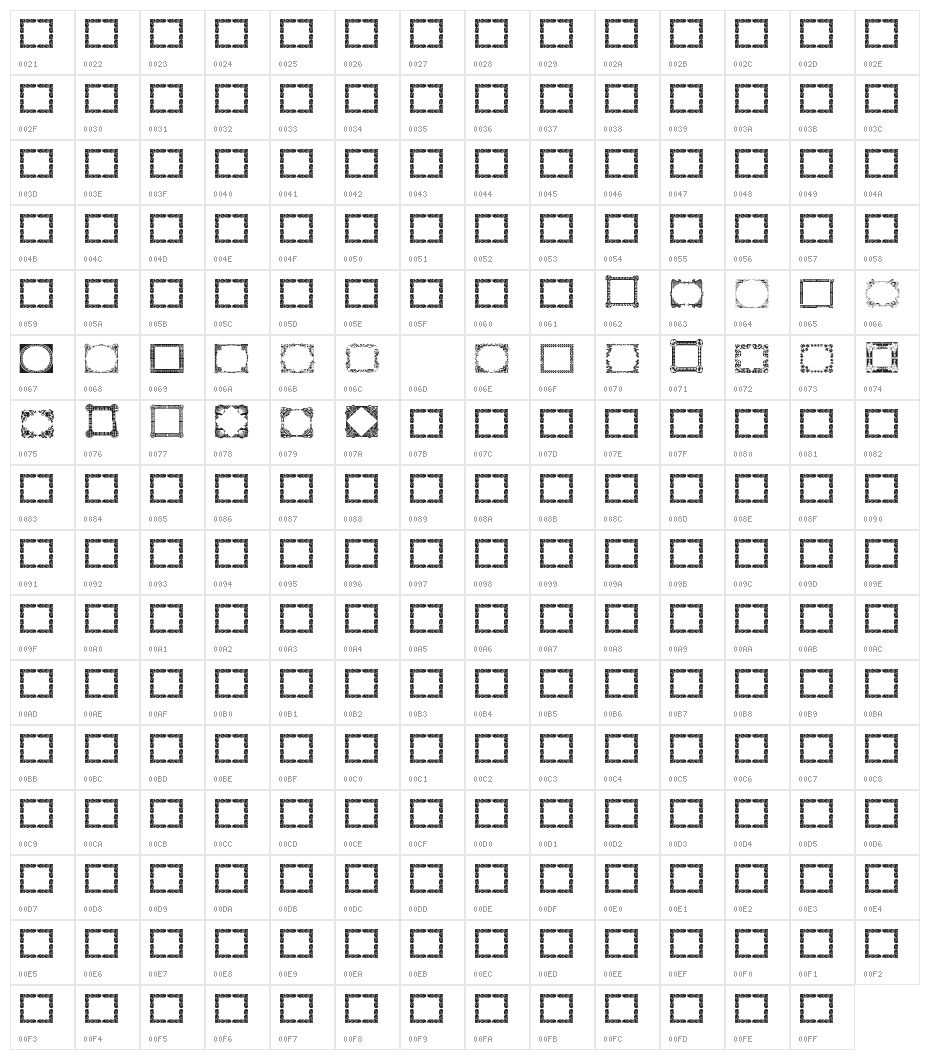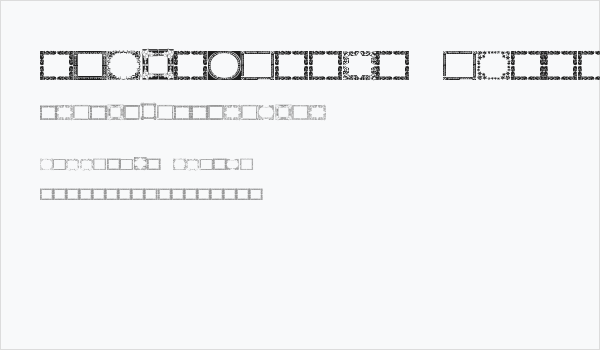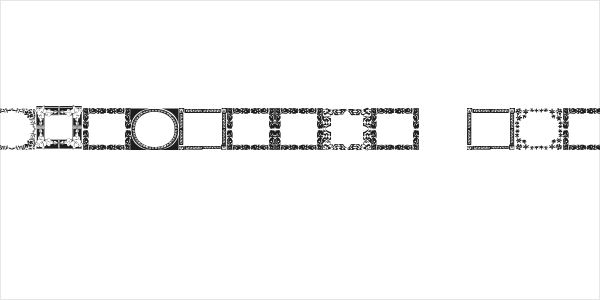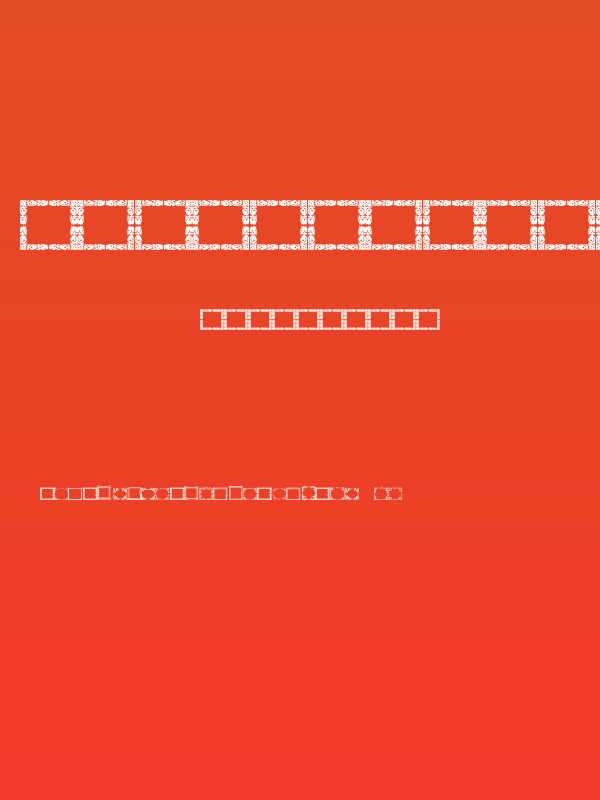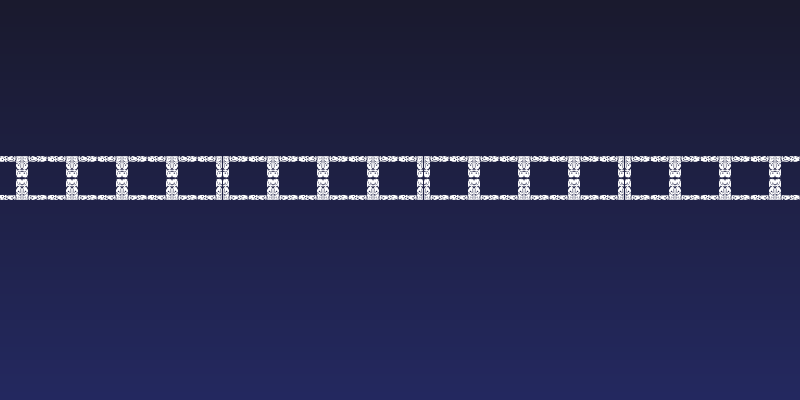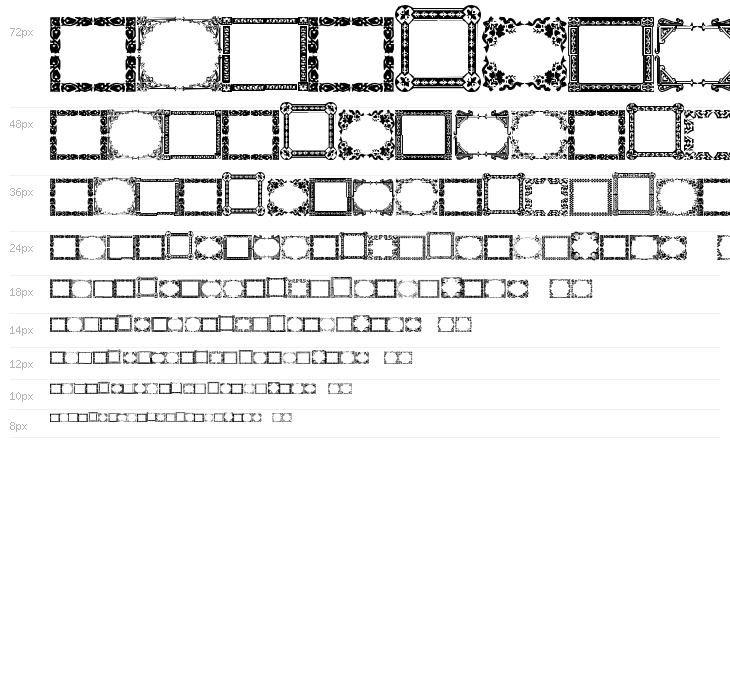
Vintage Frames 11 Font
Vintage Frames 11 Description
A decorative set of ornate, vintage-inspired frames with intricate floral and scrollwork details, presented in a border-like arrangement for each character. The frames vary in shape, including squares, rectangles, circles, and diamonds, each with elaborate embellishments reminiscent of antique picture frames.
| Overall Style | Vintage, Decorative |
| Use Case | Borders, Frames, Decorative accents |
| Proposed Projects | Invitations, certificates, scrapbooking, decorative borders, vintage-themed posters, digital art, and stationery design. |